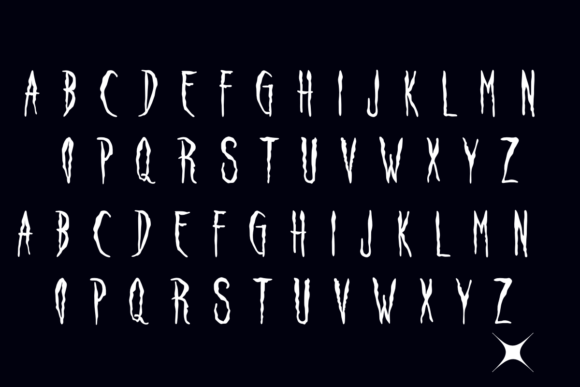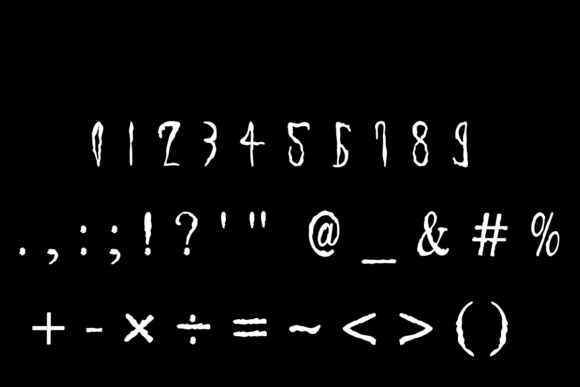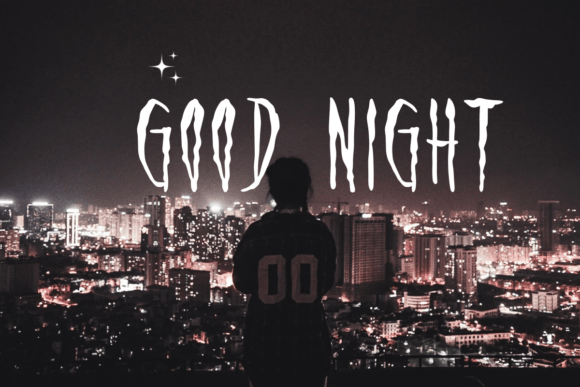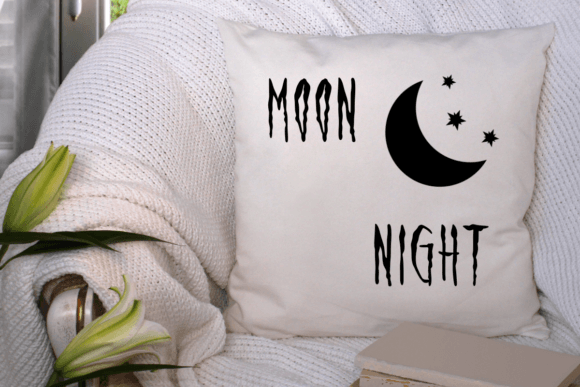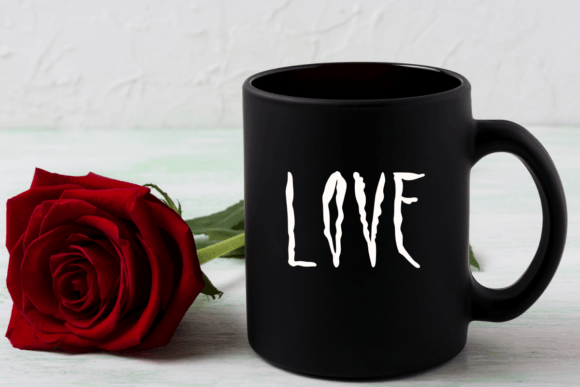
Introduction to Silent Moon Font
Silent Moon is a spooky font with a hint of old Gothic style.
Its letters have sharp, haunting shapes that give a mysterious, eerie feelโperfect for Halloween themes or anything a bit dark and magical .
Key Features of Silent Moon Font